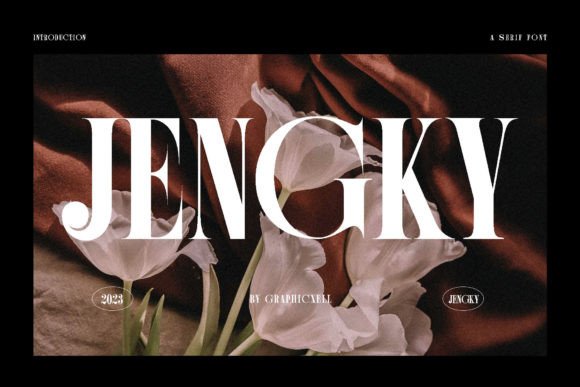
Dive into the world of typography with Jengky Font, an exquisite serif font family that exudes elegance and sophistication. Crafted with meticulous attention to detail by the skilled artisans at Graphicxell, Jengky is not just a font; it's a gateway to creative expression.
With its timeless beauty and versatility, Jengky Font is the perfect choice for designers, artists, and creative professionals seeking to make a lasting impression. Whether you're designing wedding invitations, crafting beautiful stationary art, or creating eye-catching social media posts, Jengky Font will elevate your designs to new heights.
Jengky's serifs, with their graceful curves and sharp angles, add a touch of classic charm to your creations. The font's generous x-height and open letterforms ensure excellent readability, making it ideal for extended text passages in magazines, books, or blogs.
Experience the magic of Jengky Font and unlock endless creative possibilities. Let your imagination soar as you explore the myriad ways to bring your designs to life. From elegant wedding invitations that evoke a sense of timeless romance to captivating social media posts that demand attention, Jengky Font is your ultimate design companion.
Don't settle for ordinary fonts. Embrace the extraordinary with Jengky Font and embark on a creative journey like no other. Let your designs speak volumes and leave an unforgettable impression on your audience.